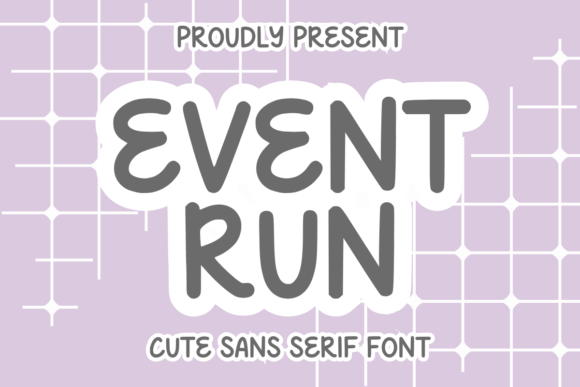
Discover Your Next Creative Companion: Event Run Font
Who else remembers the thrill of flipping through a vintage journal, mesmerized by the whimsical handwriting and eclectic designs? For many creatives, that spark is what drives us to express ourselves through art. Whether it’s journaling, scrapbooking, or designing for a brand, the right font can make all the difference. That’s where the charming Event Run Font comes in – a delightful sans serif font that adds a touch of femininity and playfulness to any project.
Event Run Font is more than just a cute face; it’s a versatile tool designed to bring your ideas to life. With its natural, hand-drawn strokes and comprehensive character set, this font is perfect for a wide range of creative endeavors, from planners and stickers to quotes and Canva projects.
- Font Family: Event Run is a modern sans-serif font designed for various digital applications.
- Unique Characteristics: Features a unique blend of geometric and organic shapes, resulting in a clean and modern aesthetic that is highly legible and visually appealing.
Event Run Font Review
Overall, I think the Event Run Font is a decent choice for certain projects, but it’s not perfect.
- Fun, modern vibe: The font has a fresh, energetic feel that’s perfect for events, parties, or other lively occasions.
- Good legibility: Despite its playful nature, the font is still easy to read, even at smaller sizes.
- Customizable: The font comes with a range of styles and weights, allowing you to tailor it to your specific design needs.
- Limited use cases: The font’s quirky style might not be suitable for more formal or professional projects.
- Lack of versatility: While the font has multiple styles, it might not be the best choice for complex, multi-font compositions.
- Not ideal for body text: Due to its playful nature, the font might not be the best choice for large blocks of text.
The Event Run Font is a solid choice for projects that require a fun, energetic feel. While it may not be the best fit for every project, it’s a great option when you need to add some personality to your design.
Use the Event Run Font to create eye-catching headlines and titles.
Combine it with other creative elements, such as illustrations or graphics, to add visual interest.
Experiment with different font sizes, colors, and styles to find the perfect look for your project.
Use the Event Run Font for:
Event promotions and marketing materials.
Conferences and trade show signage.
Wedding invitations and decor.